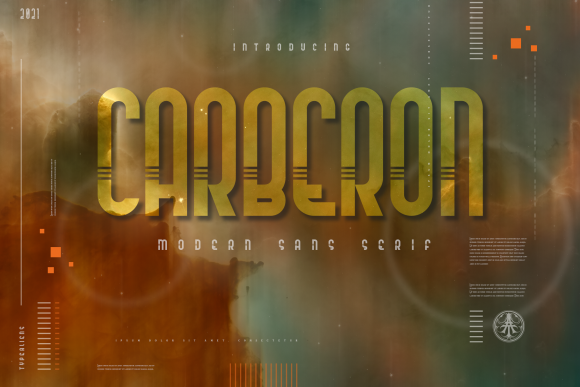
The Carberon Font: A Simple yet Powerful Design Companion
Have you ever been in the middle of a design project, and suddenly, you’re stuck on finding the perfect font? I recall a recent experience where I was working on a branding project for a client, and I just couldn’t seem to find a font that captured the essence of their brand. That’s when I stumbled upon the Carberon font, and it completely transformed my design. In this article, we’ll explore the ins and outs of the Carberon font, and how it can elevate your designs.
My Encounter with Carberon
I was working on a logo design for a trendy new coffee shop, and I needed a font that was both modern and elegant. After hours of searching, I finally came across Carberon, and it was love at first sight! The simple yet sharp lines of this display font immediately caught my attention, and I knew I had found the perfect fit. The font’s clean design and versatility have since made it a staple in my design toolkit.
An Honest Review of Carberon
So, what makes Carberon so special? Here are some of the things I love about this font:
• ✨ Simple yet striking design: Carberon’s clean lines and minimalist approach make it perfect for a wide range of design projects.
• ✅ Highly versatile: This font can be used for everything from logos and branding to headings and titles.
• 💡 Inspires creativity: Carberon’s unique design will spark your imagination and help you create something truly original.
Of course, no font is perfect, and Carberon has a few small quirks:
• 🤔 Limited suitability for body text: Due to its bold design, Carberon is best used for headings and titles, rather than body text.
• ⚠️ Some characters may require manual kerning: While the font is generally well-spaced, some characters may require manual kerning to achieve optimal results.
One of the standout features of Carberon is its support for OpenType features and glyphs. These features allow you to customize your text with stylistic alternates, ligatures, and more. To access these features:
The Story Behind Carberon
Carberon was designed by a team of creatives who wanted to create a font that was both simple and powerful. Inspired by modern design trends and a passion for typography, they crafted a font that would inspire designers and non-designers alike. While the exact details of the design process are unclear, it’s evident that Carberon was created with the goal of providing a versatile, high-quality font for a wide range of design projects.
Q: What type of designs is Carberon best suited for?
A: Carberon is perfect for logos, branding, headings, and titles. Its bold design makes it ideal for making a statement.
Q: Can I use Carberon for body text?
A: While Carberon is a beautiful font, it’s not recommended for body text due to its bold design. Instead, use it for headings and titles.